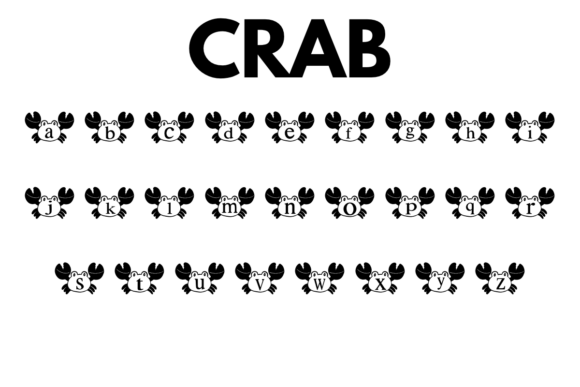
Crab Font: A Decorative Font for Creative Expression
The Crab Font is a unique and decorative font that can add a touch of personality to any written content. Whether you’re taking notes, writing a diary, or creating greeting cards, this font is sure to make your text stand out. But its uses don’t stop there. The Crab Font can also be used for a wide range of design projects, including banners, content, mugs, cards, shirts, stationery, social media posts, and more.
What is Crab Font?
The Crab Font is a decorative font that features a distinctive and eye-catching design. Its unique style makes it perfect for adding a touch of whimsy and personality to any written content. The font is easy to read and can be used for both personal and professional projects.
Uses of Crab Font
The Crab Font is a versatile font that can be used for a wide range of projects. Here are some of the ways you can use this font:
- Note-taking: Use the Crab Font to add a touch of personality to your notes. Whether you’re taking notes for school or work, this font can make your text more engaging and fun to read.
- Diary writing: If you enjoy writing in a diary, the Crab Font can be a great way to add some visual interest to your entries. You can use different colors and formatting to make your diary entries more visually appealing.
- Greeting cards: The Crab Font is perfect for creating greeting cards for special occasions. You can use it to create handmade cards for birthdays, holidays, and other events.
- Banners: Use the Crab Font to create eye-catching banners for parties, events, or promotions. You can customize the font to fit your needs and add your own message or logo.
- Content creation: If you’re creating content for your blog or website, the Crab Font can be a great way to add some visual interest to your text. You can use it to create headings, subheadings, or even entire paragraphs.
- Mugs and ceramics: The Crab Font can be used to create custom designs for mugs, ceramics, and other household items. You can add your own message or logo to create a unique and personalized gift.
- Cards and invitations: Use the Crab Font to create custom cards and invitations for special occasions. You can customize the font to fit your needs and add your own message or logo.
- Shirts and apparel: The Crab Font can be used to create custom designs for shirts, hoodies, and other apparel. You can add your own message or logo to create a unique and personalized gift.
- Stationery: Use the Crab Font to create custom stationery, including notebooks, journals, and letterhead. You can customize the font to fit your needs and add your own message or logo.
- Social media posts: The Crab Font can be used to create eye-catching social media posts that stand out from the crowd. You can use it to create custom graphics, headings, and text overlays.
Benefits of Using Crab Font
The Crab Font offers a range of benefits for designers, writers, and artists. Here are some of the advantages of using this font:
- Unique and eye-catching: The Crab Font is a unique and eye-catching font that can add a touch of personality to any written content.
- Easy to read: Despite its decorative design, the Crab Font is easy to read and can be used for both personal and professional projects.
- Versatile: The Crab Font can be used for a wide range of projects, from note-taking and diary writing to banners, content creation, and more.
- Customizable: You can customize the Crab Font to fit your needs, including changing the color, size, and style of the text.
Tips and Tricks for Using Crab Font
Here are some tips and tricks for using the Crab Font:
- Use it sparingly: While the Crab Font is eye-catching, it can be overwhelming if used too much. Use it sparingly to add emphasis to your text.
- Experiment with colors: The Crab Font looks great in a variety of colors. Experiment with different colors to find the one that works best for your project.
- Pair it with other fonts: The Crab Font can be paired with other fonts to create a unique and visually appealing design.
- Use it for headings: The Crab Font is perfect for headings and subheadings. Use it to add emphasis to your text and create a visually appealing design.
The Crab Font is a unique and decorative font that can add a touch of personality to any written content. Its versatility and customizability make it perfect for a wide range of projects, from note-taking and diary writing to banners, content creation, and more. With its ease of use and range of benefits, the Crab Font is a great choice for designers, writers, and artists looking to add some visual interest to their work.